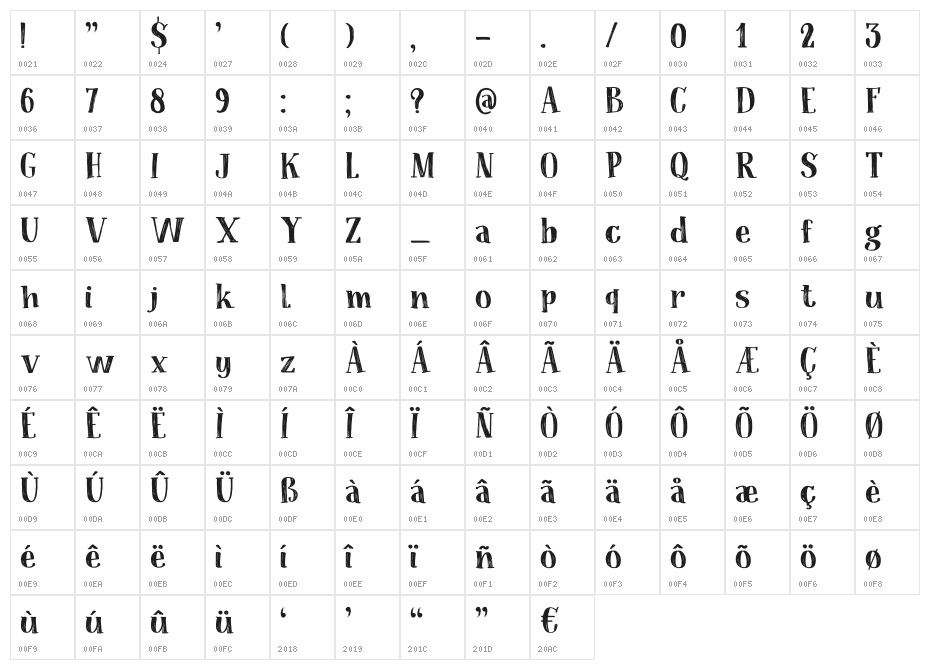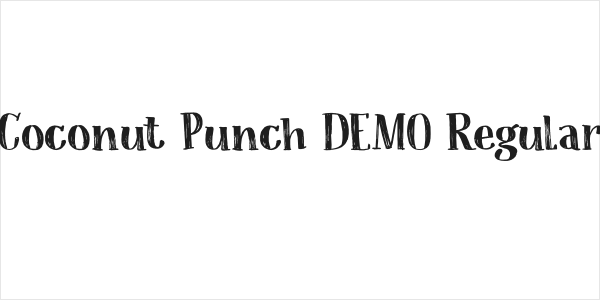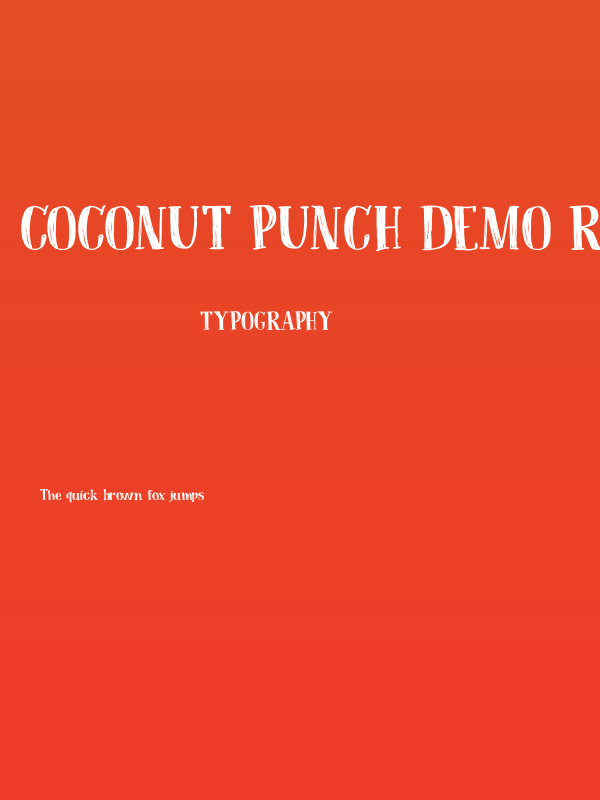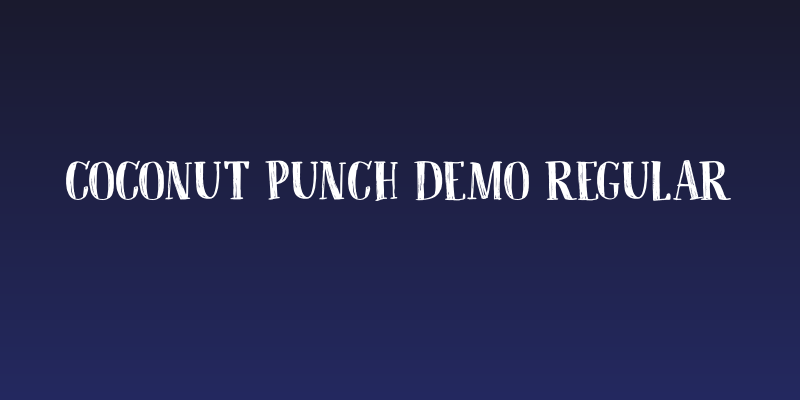
Coconut Punch DEMO Regular Font
Coconut Punch DEMO Regular Description
This font features a playful and bold design with a hand-drawn aesthetic. The characters have a textured appearance, resembling brush strokes or ink splatters, giving it a lively and dynamic feel. The uppercase and lowercase letters maintain a consistent style, with slightly exaggerated serifs and varying stroke widths that add to its whimsical charm. The numbers and special characters follow the same artistic approach, making the font suitable for creative and informal projects. Its unique style captures attention and adds a fun, energetic vibe to any design.
| Proposed Projects | Ideal for posters, children's books, party invitations, and branding that requires a fun and energetic touch. |